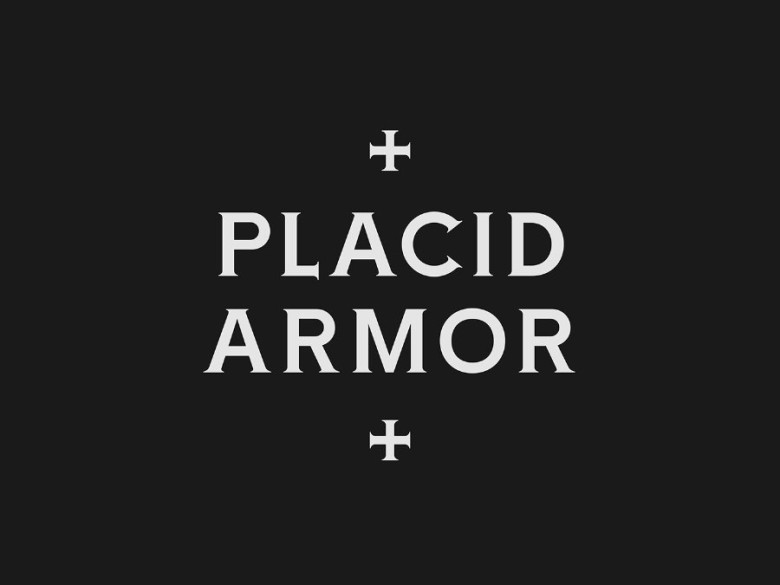
Placid Armor Typeface
Great! That was my initial feeling. Introducing Placid Armor Typeface! A new font family, Placid Armor designed and shared by Alfredo Marco Pradil. Placid Armor™ is inspired by the olden gothic types which were designed for headings and titles—normally as stone carving. Placid Armor on the other hand was designed to be used as a display typeface but also for body text and captions. The serifs are less prominent so that when the text is small, the serif are like stress to end a stroke using a flat nib.